Script Fonts: 10 Jaw-Dropping and Essential Masterpieces for Breathtaking Designs
Stop settling for boring typography and start using professional Script Fonts that truly captivate your audience. This handpicked collection of top-tier Script Fonts is designed to save you hours of searching, helping you instantly elevate your creative projects with a sophisticated, world-class aesthetic that stands out.
1. Ideas Script Font
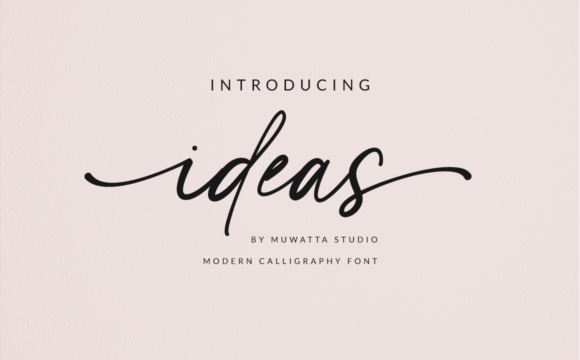
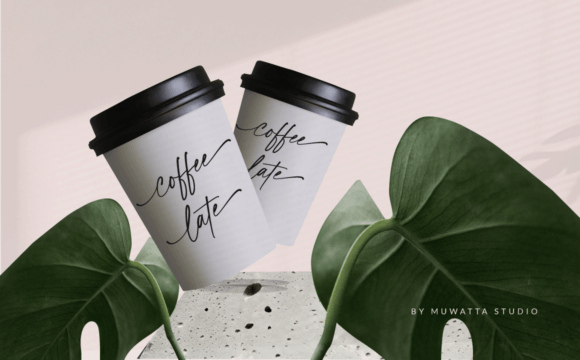
I’m absolutely charmed by Ideas, a typeface that feels like a breath of fresh air for any creative layout. Its fluid, handwritten strokes bring a personal touch to greeting cards and social media quotes. If you need Script Fonts that embody elegance and modern flair, this gem is a perfect way to make your designs feel truly unique and heartfelt.
2. Black Sample Script Font
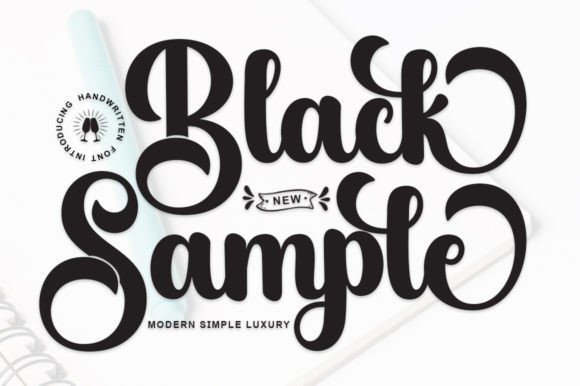
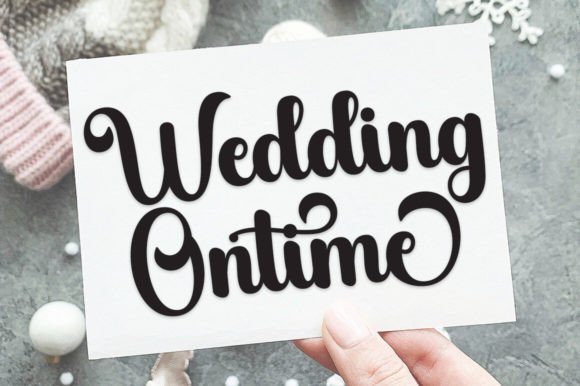
I’m really impressed by the bold, edgy energy that Black Sample brings to the table. It’s a rebellious take on traditional lettering, making it an ideal match for streetwear branding, music posters, or daring logo designs. When you are looking for Script Fonts that break the rules and command attention with raw, urban vibes, this font is your ultimate weapon.
3. Handwritten Script Font
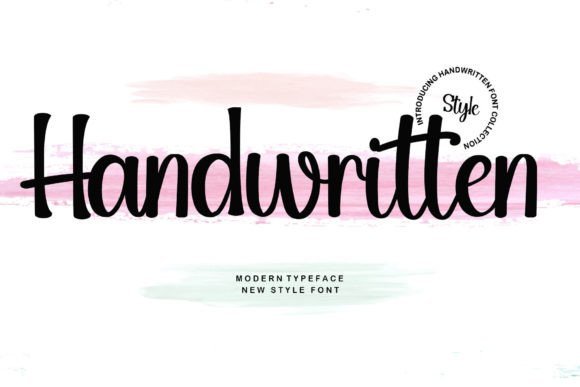
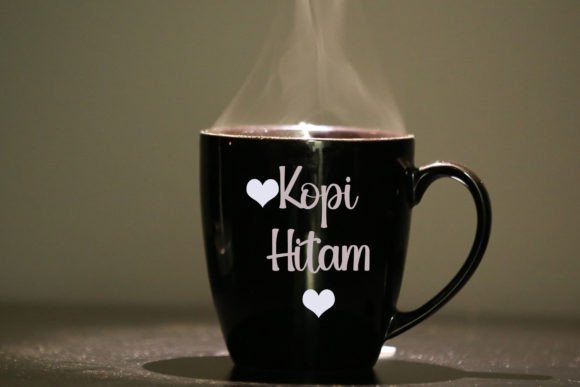
I find this specific Handwritten font to be a masterclass in casual sophistication and effortless flow. Its delicate, thin lines look stunning on wedding stationery or high-end product labels where a personal signature feel is required. If you want Script Fonts that offer a high-fashion aesthetic while remaining warm and inviting, this typeface is a brilliant addition to your creative assets.
4. Holiday Lover In Paris Script Font
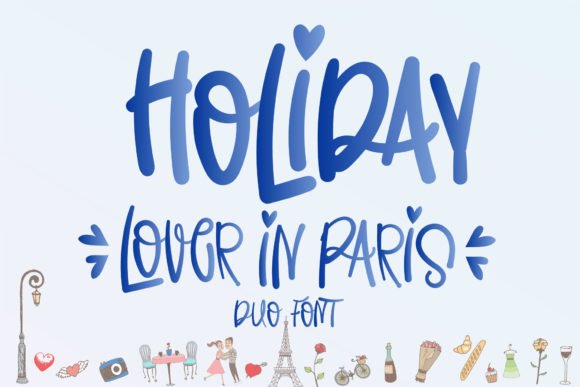
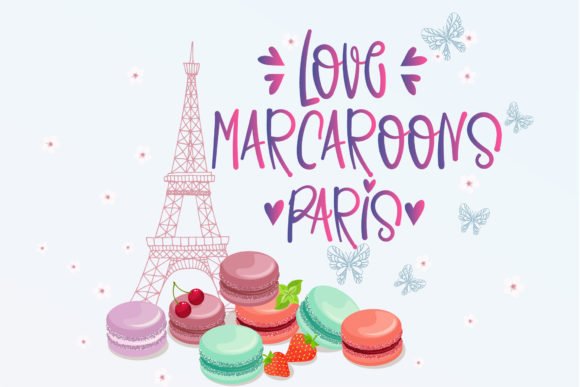
I’m completely swept away by the romantic and chic vibes of Holiday Lover In Paris. It’s a sophisticated typeface that captures the essence of a dream vacation, making it perfect for travel blogs, luxury invitations, or editorial spreads. For those seeking Script Fonts that deliver an upscale, European flair, this stunning font is a must-have for creating truly unforgettable and stylish designs.
5. Ashley Southine Script Font
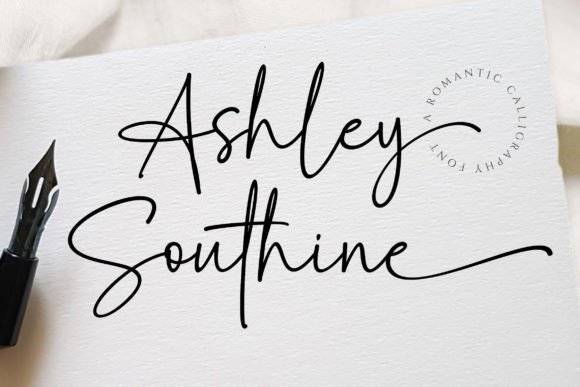
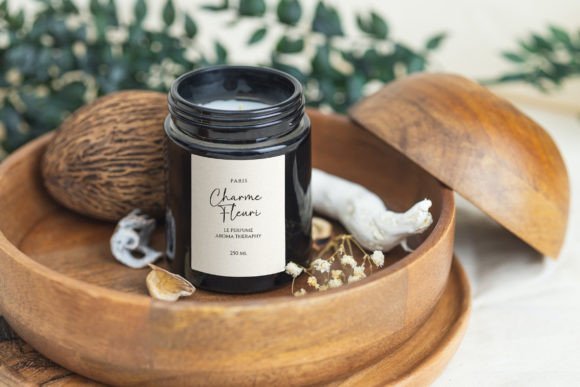
I absolutely adore how Ashley Southine combines a rhythmic flow with a sophisticated, high-end signature style. It’s an incredible choice for luxury branding, feminine logos, or elegant photography watermarks that need a premium touch. If you are on the hunt for Script Fonts that radiate confidence and timeless beauty, this gorgeous typeface will definitely help your creative projects stand out with effortless grace.
6. Monday Script Font
I think Monday is the ultimate choice for projects that need a cheerful, bouncy, and modern handwritten feel. Its thick, smooth strokes create a friendly atmosphere that works wonders for nursery decor, playful branding, or uplifting social media graphics. When you need Script Fonts that feel optimistic and approachable, this delightful typeface is a fantastic tool to brighten up your professional creative portfolio.
7. Ashley Marie Script Font
I find Ashley Marie to be an incredibly graceful typeface that perfectly captures the essence of modern calligraphy. Its flowing connections and elegant loops make it a dream choice for wedding invitations, lifestyle branding, or sophisticated social media layouts. When searching for Script Fonts that offer a delicate balance of style and warmth, this font provides a high-end feel that will make your creative projects look truly polished.
8. Hello Script Font
I think Hello is the ultimate choice for designers who want to add a friendly and incredibly welcoming vibe to their work. Its smooth, rounded curves make it an exceptional fit for greeting cards, home decor projects, or personalized branding. If your goal is to find Script Fonts that feel approachable and charming, this lovely typeface is a fantastic way to give your creative layouts a warm and professional human touch.
9. Pink Vibes Duo Script Font
I absolutely love the energetic and trendy personality that Pink Vibes Duo brings to any canvas. This font perfectly blends a chic handwritten aesthetic with a modern flair, making it a top-tier choice for fashion branding, posters, or vibrant social media content. When your project demands Script Fonts that feel fresh, stylish, and full of life, this versatile duo is a game-changer that will make your creative vision pop.
10. California Script Font
I’m truly impressed by how California manages to feel both sun-drenched and incredibly professional. Its relaxed yet refined strokes are a perfect match for beach-themed branding, summer event posters, or organic product packaging. If you’re scouting for Script Fonts that evoke a sense of freedom and high-end coastal style, this typeface is a phenomenal asset to ensure your creative projects radiate a warm, sophisticated glow.